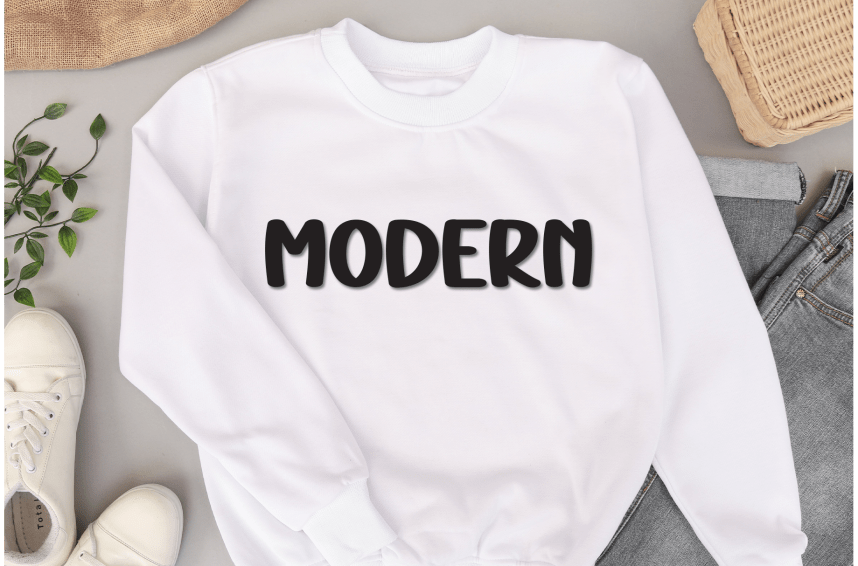
High Thinker Playful Font
High Thinker Playful Font is a sweet and friendly handwritten display font. Cute and fun, this font is ideal for writing wedding invitations, cards, or any other design that might need a playful touch!